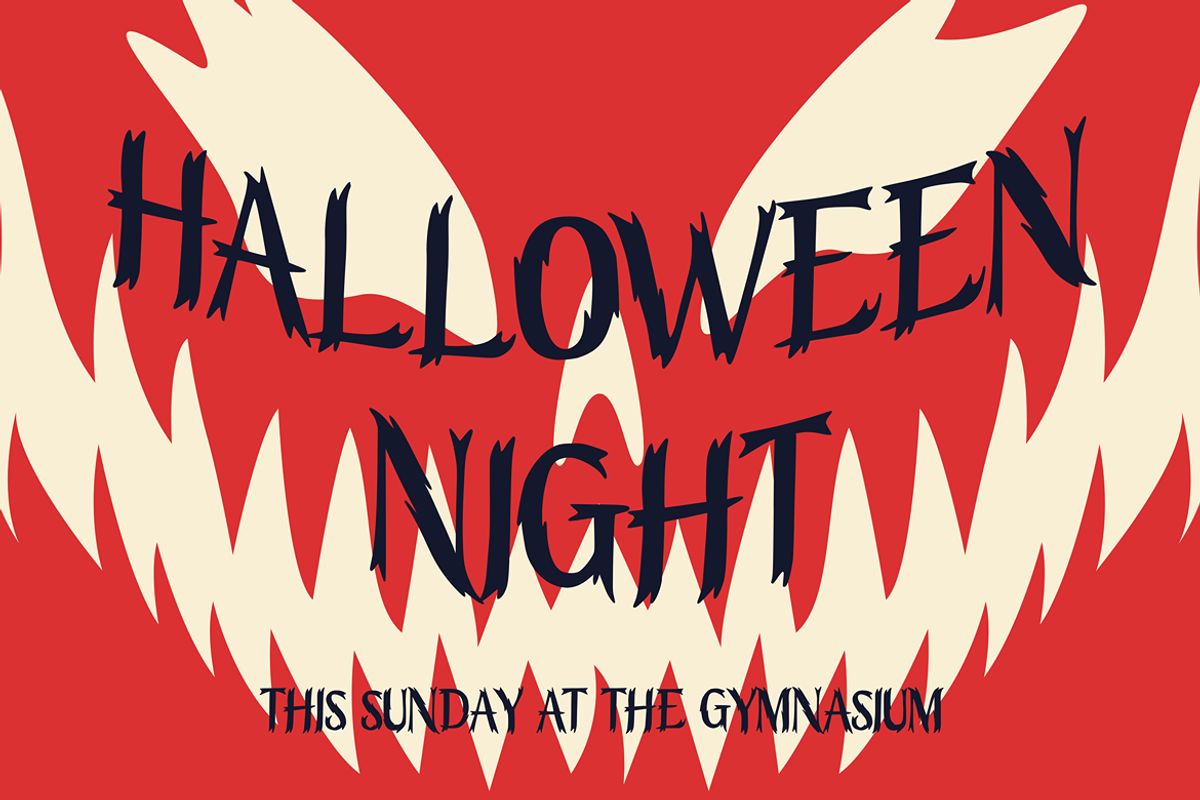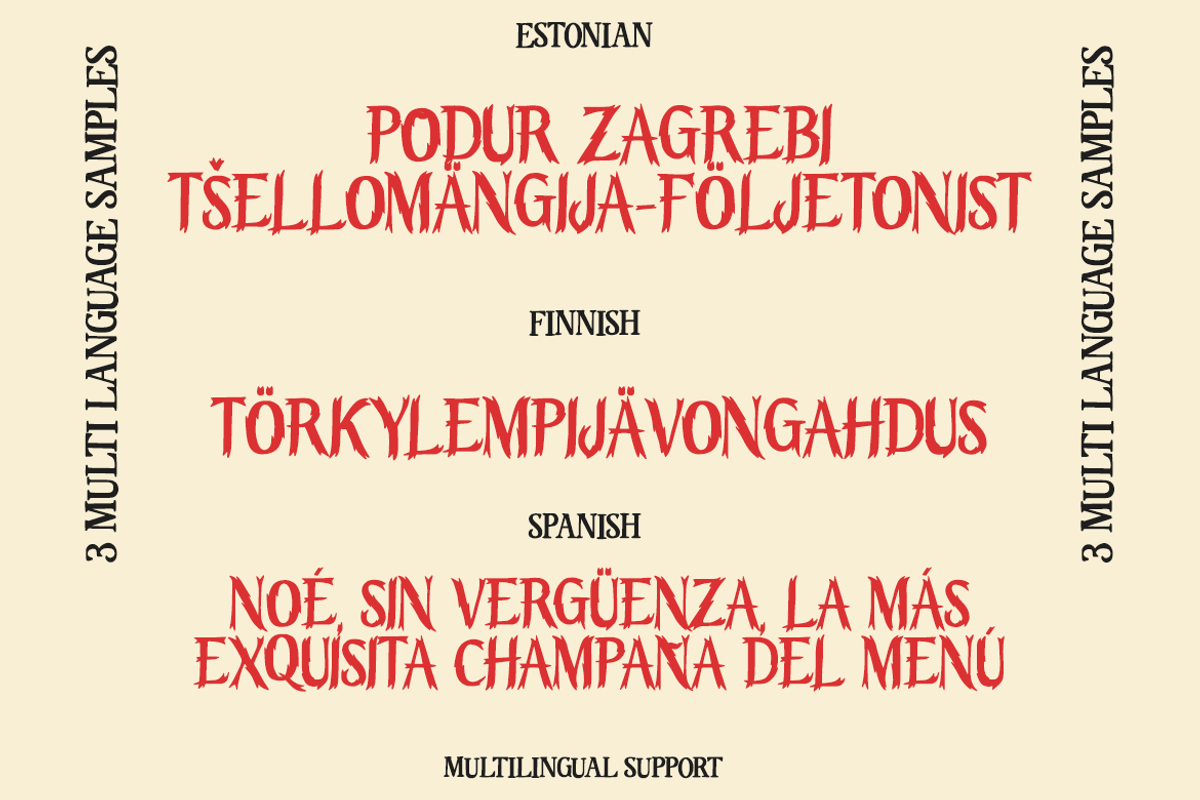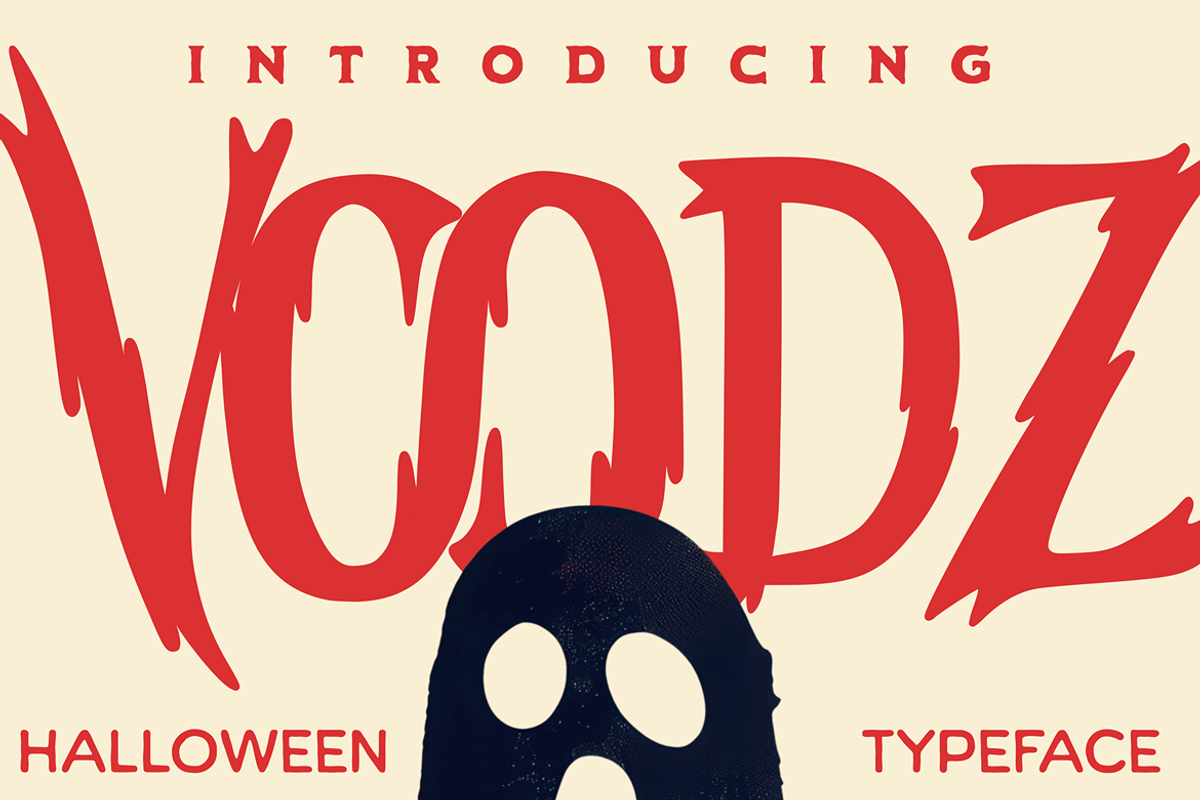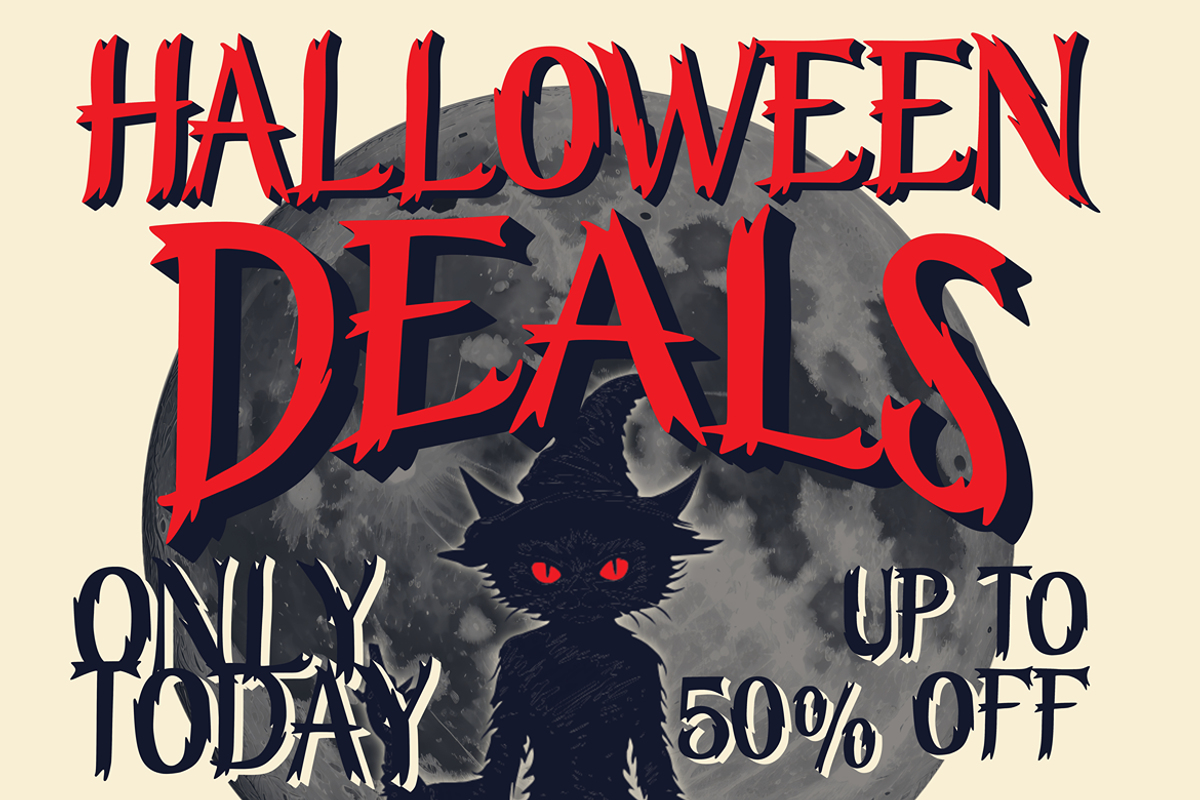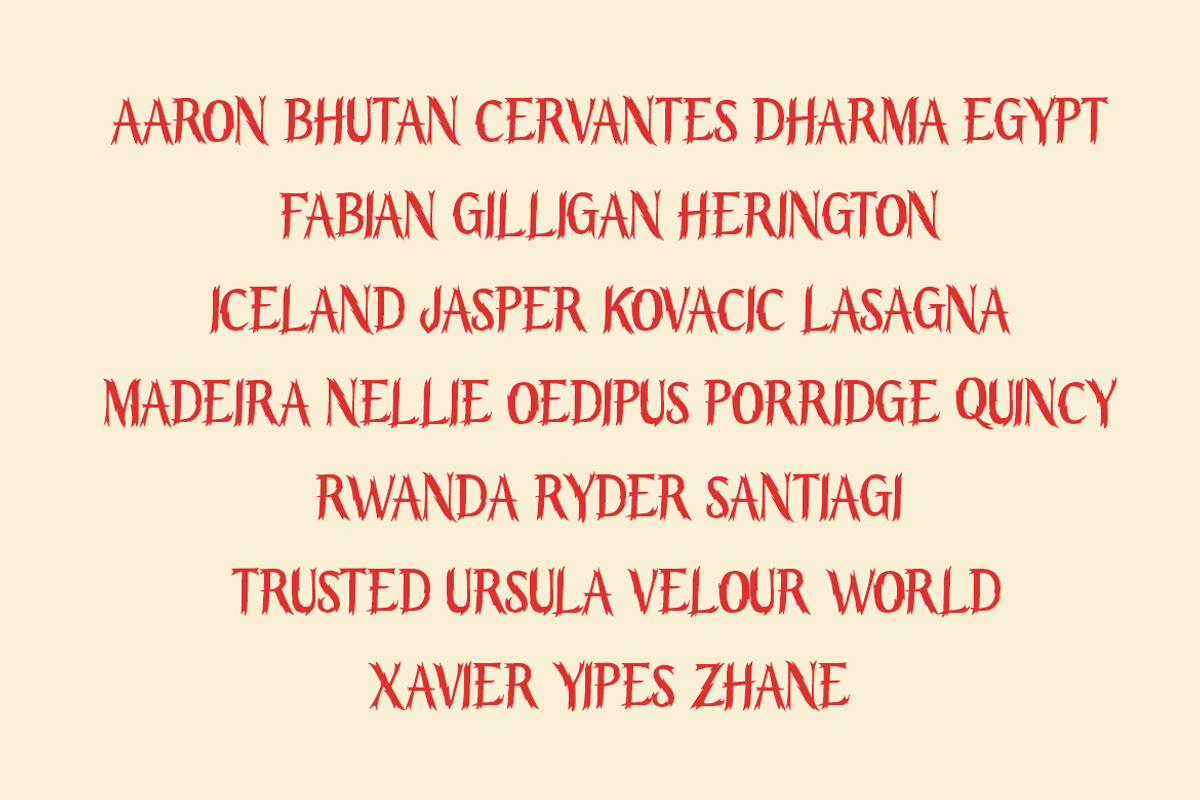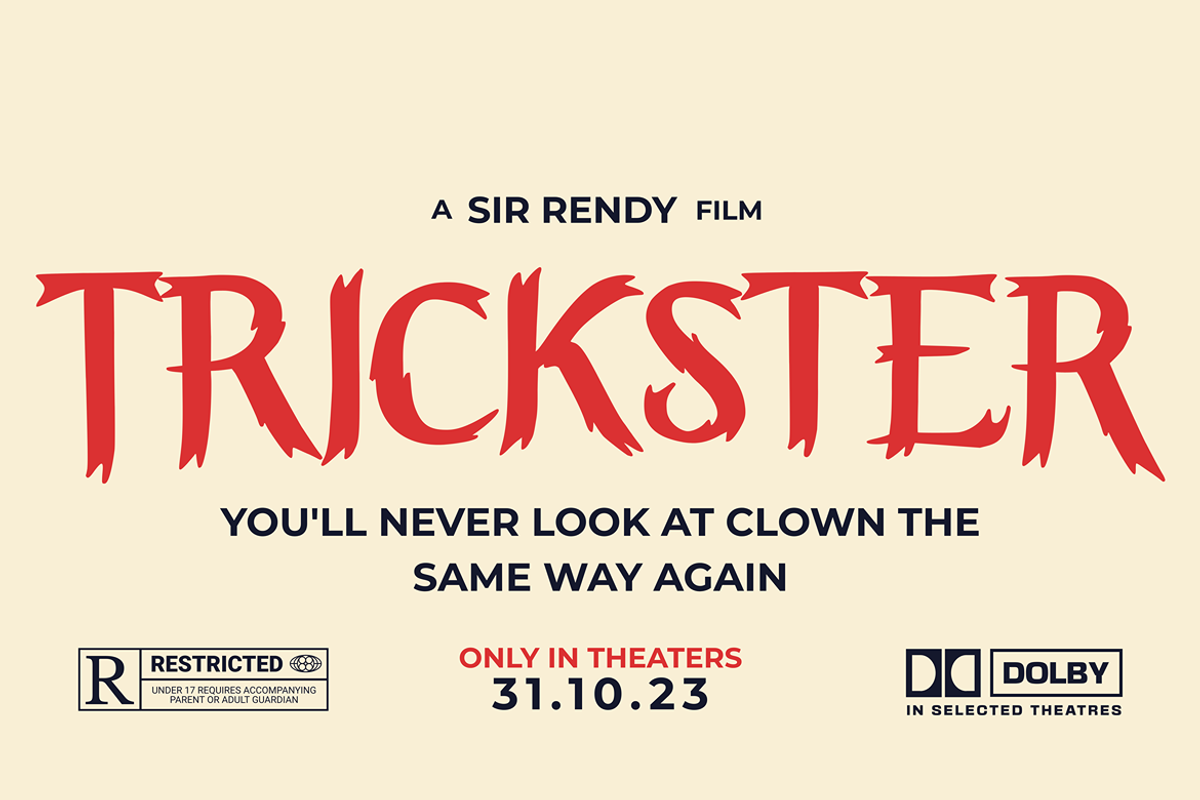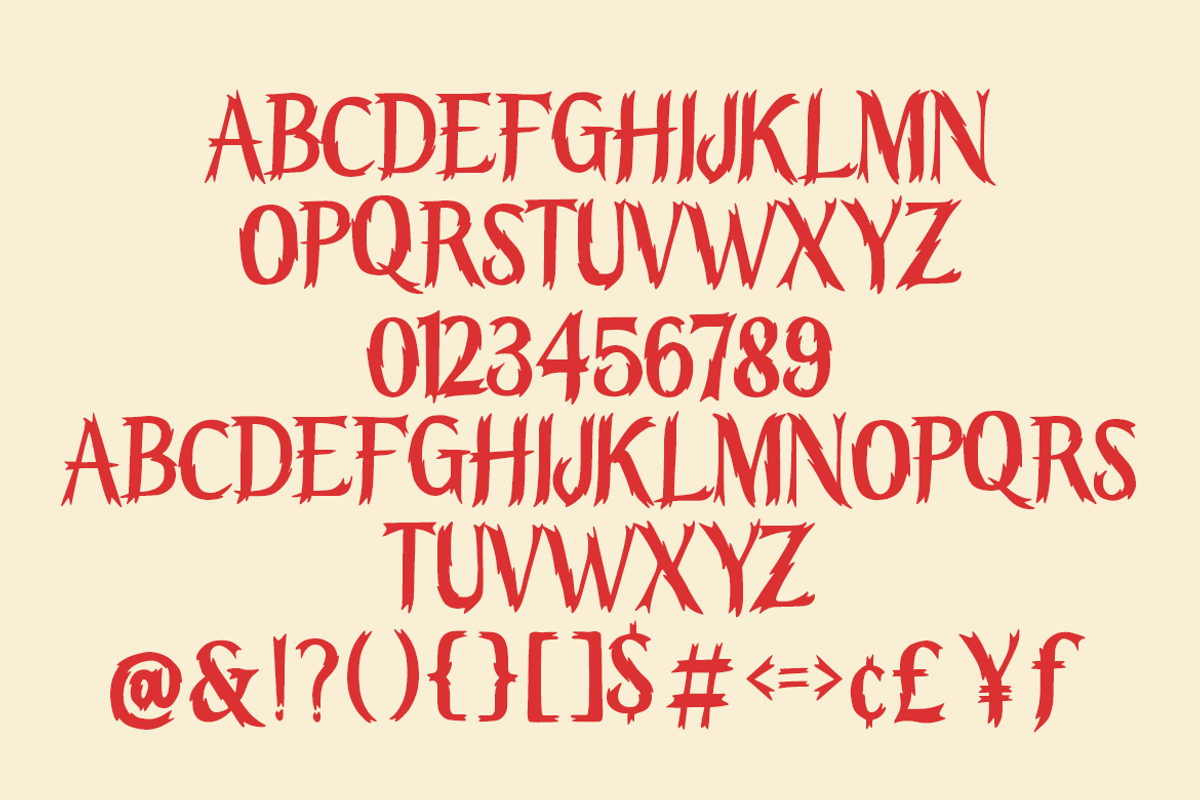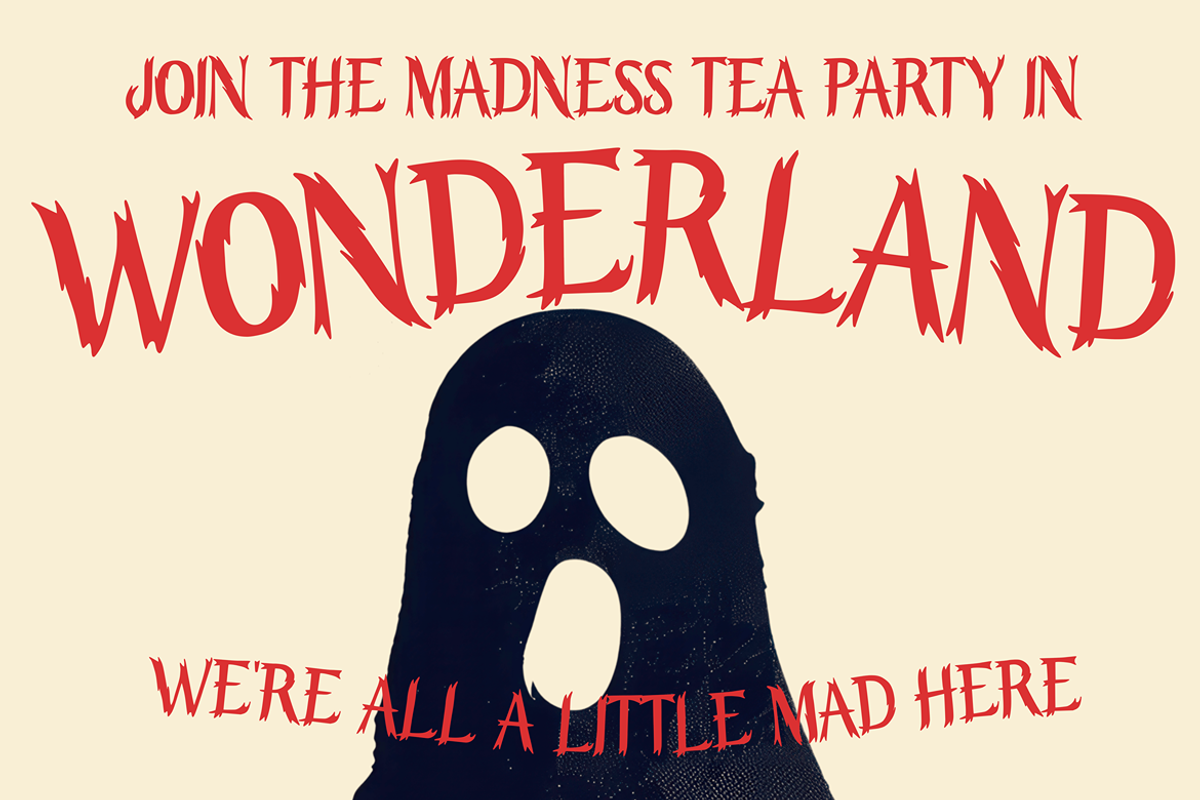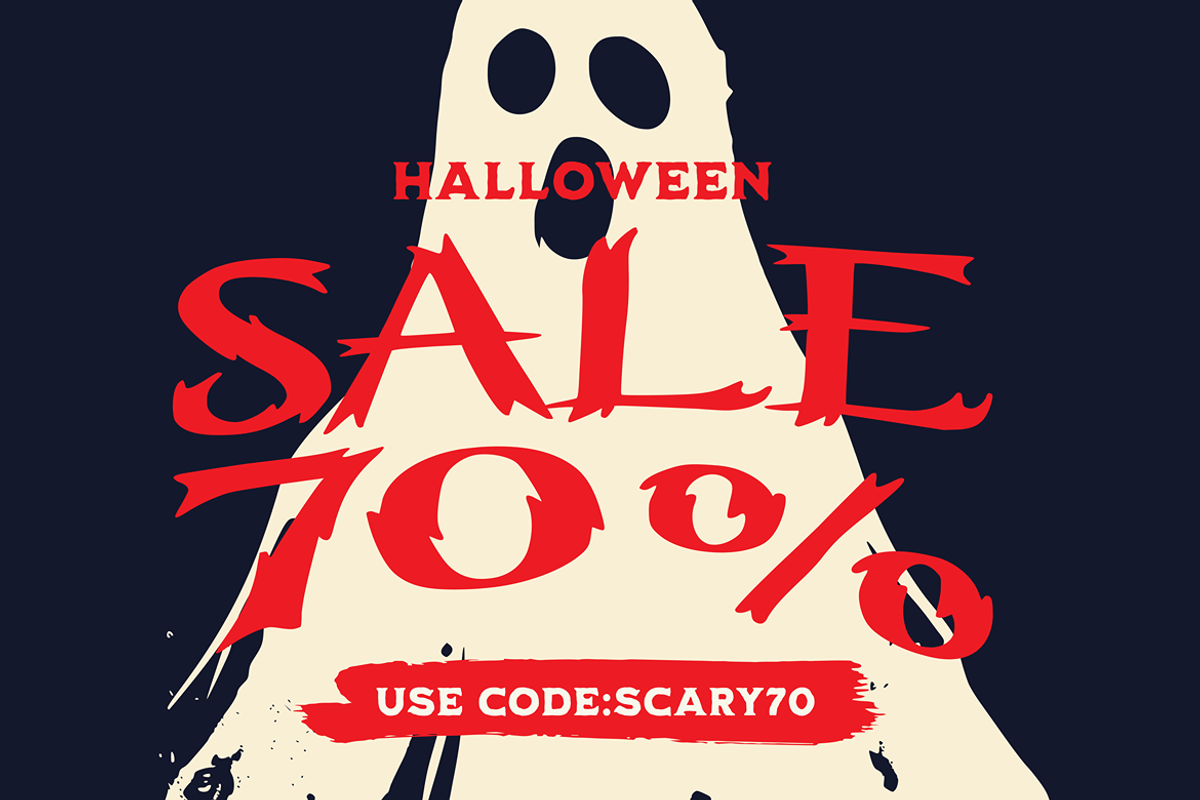
VOODZ – Halloween Typeface
Voodz is a haunting typeface designed to deliver maximum impact for projects that need a bold and sinister edge. With its sharp energy and chilling presence, this font is perfect for capturing the eerie spirit of Halloween and horror-themed concepts. It brings a sense of suspense, mystery, and intensity that makes any design instantly unforgettable.
Versatile and powerful, Voodz is suitable for posters, invitations, branding, digital graphics, and headline treatments where a strong, terrifying mood is required. It comes with multilingual support, uppercase and lowercase variations, and is crafted to maintain clarity while amplifying the fear factor. Whether you are designing for horror events, Halloween parties, or spooky campaigns, Voodz ensures your work stands out with a distinct voice that both scares and fascinates.
More than just letters, Voodz is an atmosphere — one that turns your creative vision into something truly spine-chilling.
Features : Uppercase and lowercase characters